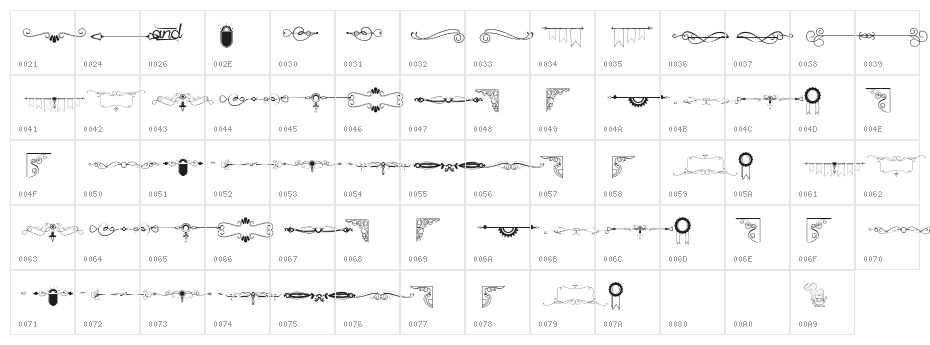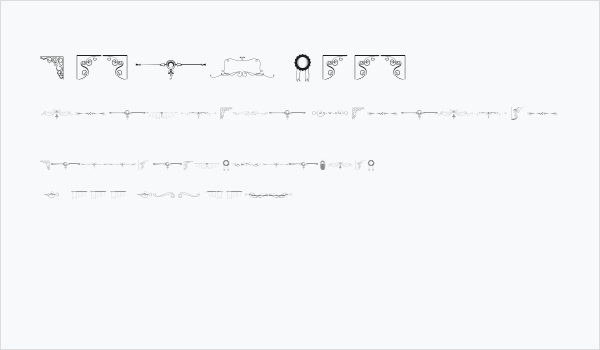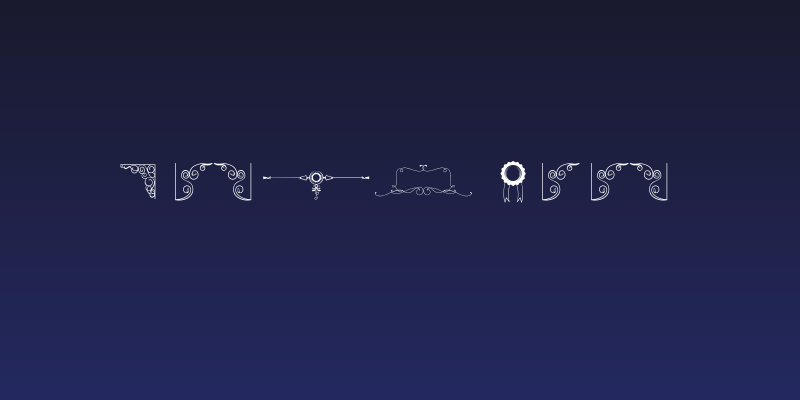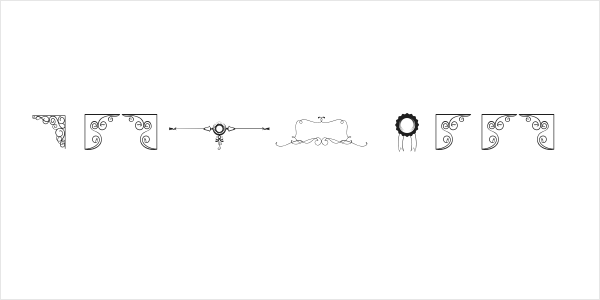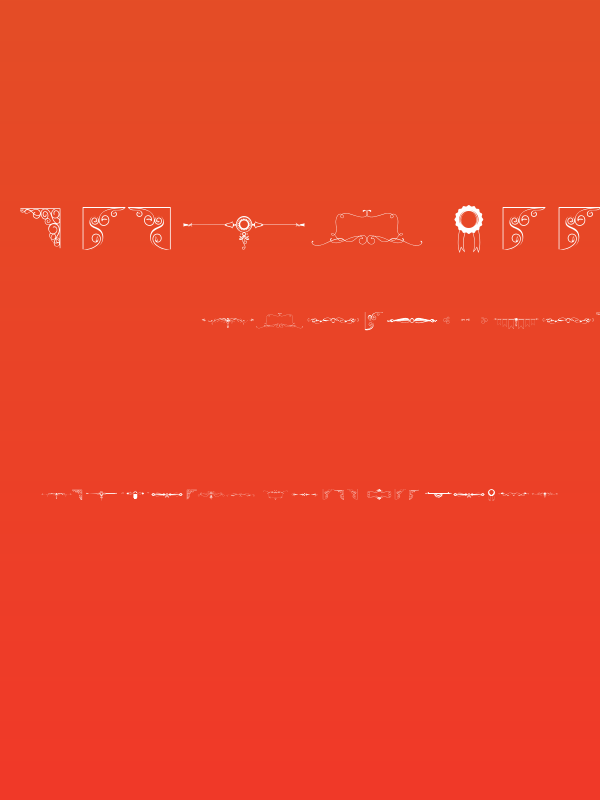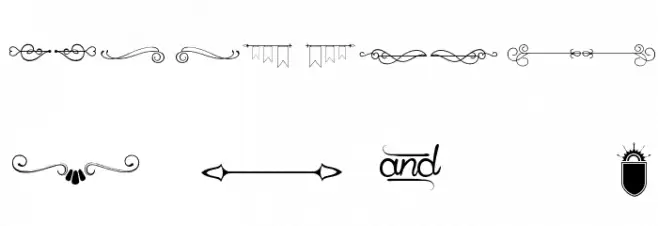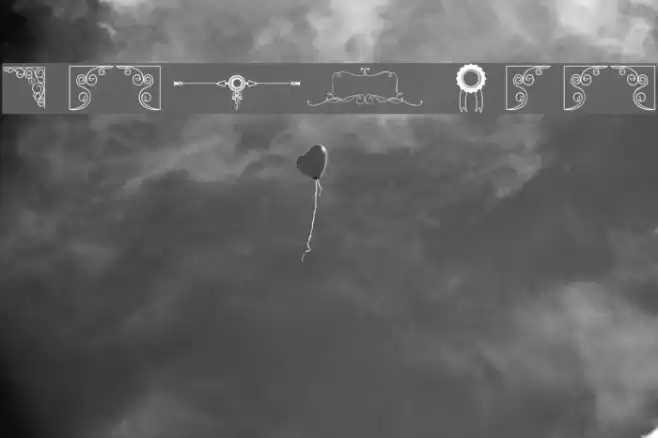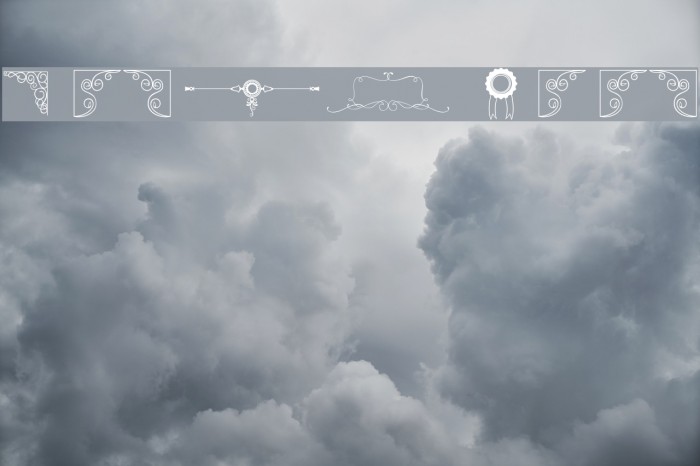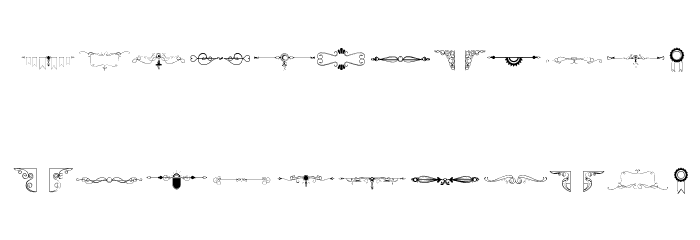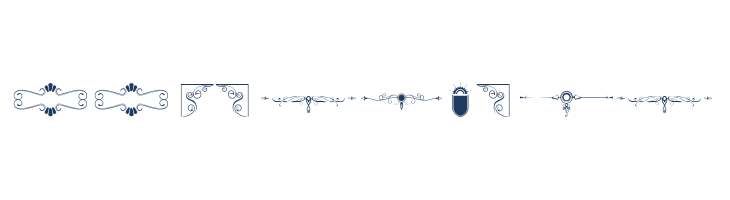
Honey Moon Font
Honey Moon Description
This is not a traditional font but rather a collection of decorative elements and ornaments. The design features intricate flourishes, banners, and embellishments that evoke a sense of elegance and sophistication. These elements are perfect for adding a vintage or classic touch to various design projects. The collection includes ornate dividers, corner designs, and decorative arrows, each crafted with attention to detail. The style is reminiscent of Victorian or Edwardian aesthetics, making it suitable for projects that require a touch of historical charm.
| Use Case | Decorative elements |
| Proposed Projects | Ideal for wedding invitations, vintage-themed posters, decorative certificates, and elegant branding materials. |